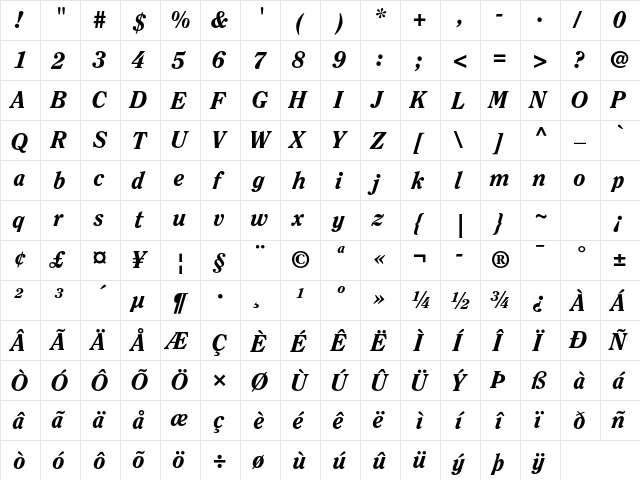
ITC Clearface Std Heavy Italic
| Designer | Vic Caruso |
Design Context for ITC Clearface Std Typeface
ITC Clearface Std takes a measured approach to typography — its balanced proportions and neutral character make it a reliable workhorse for both digital and print work. The dynamic lean of this cut emphasises speed and emphasis in any layout.
Dating back to 1994, this typeface is available in OpenType (OTF) format.
Pro Tip: Try ITC Clearface Std for annotation and caption copy alongside an upright companion — the contrast in angle creates a dynamic but ordered typographic system.